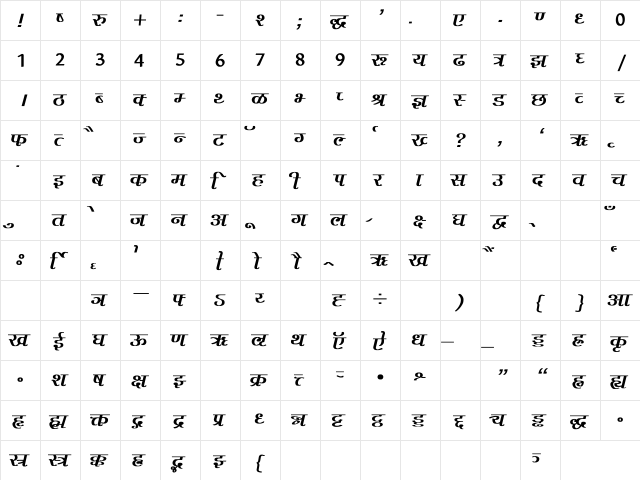
Agra Bold
Design Context for Agra Typeface
Agra offers clean, dependable letterforms without strong stylistic allegiance, making it a practical choice for designers who need flexibility. Its bold stroke weight gives it real presence on the page.